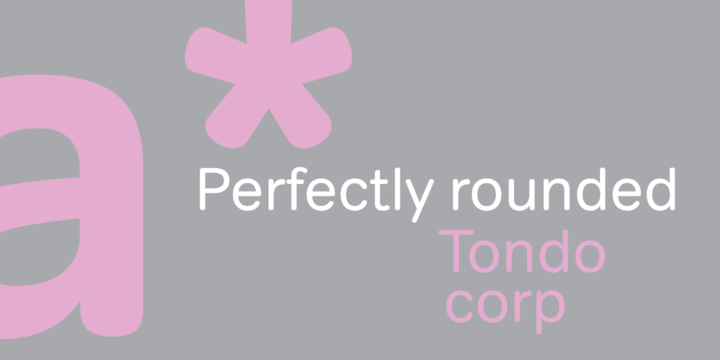
Tondo is a contemporary rounded sans serif font family which can easily fend off any of its competitors. The rounded ends of Tondo’s strokes are slightly flattened. This approach to rounding helps the font to appear more stable and less fuzzy, particularly when set at smaller sizes. The drawing of the characters is precise and clean without appearing mechanical. When set, Tondo will create an even and harmonious texture that does not aim to compete with other design elements, but supports the brand with a subtle voice. More…
The meticulous crafting of every detail ensures that Tondo stands up to the closest scrutiny when used at very large sizes, such as on billboards, and although not primarily designed for body text, Tondo functions very well at smaller sizes too. The Corporate Edition includes Latin Extended A, Greek and Cyrillic characters sets. A Standard Edition is also available.